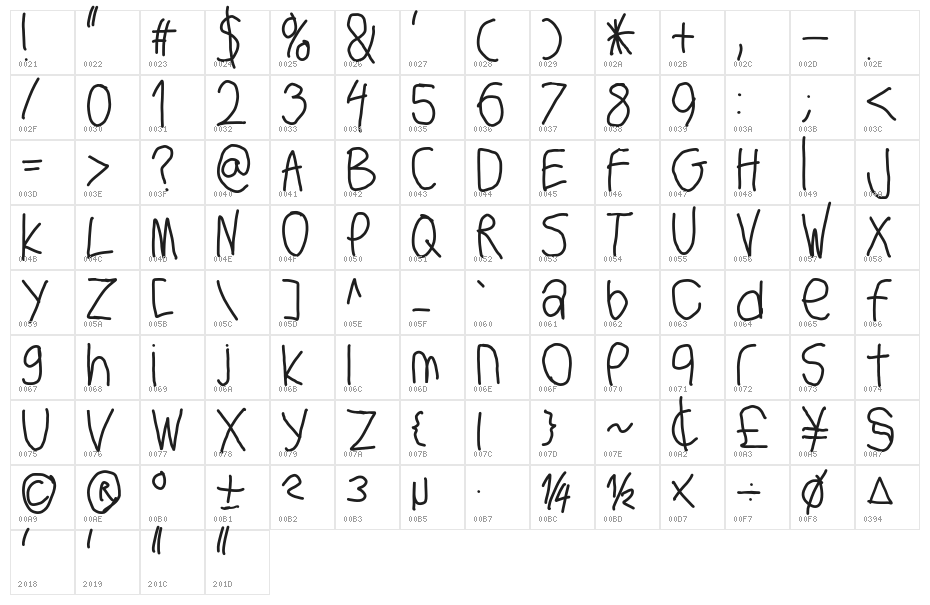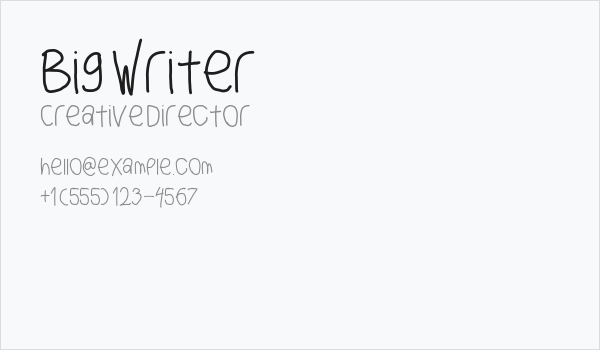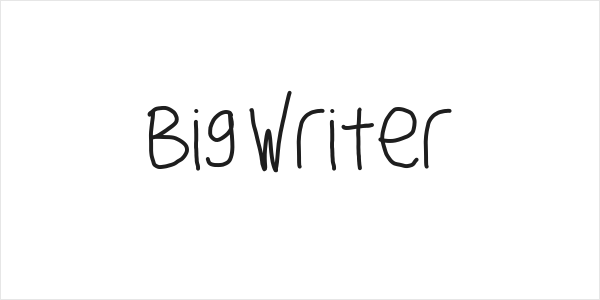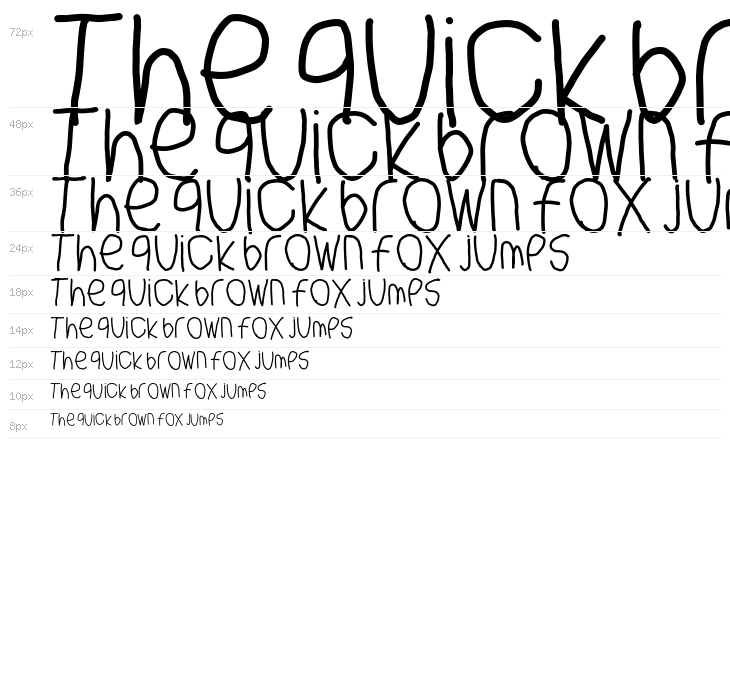
Big Writer Font
Big Writer Description
This font exhibits a playful and informal handwritten style, characterized by its irregular and organic letterforms. The strokes are uneven, giving it a casual and approachable feel. The uppercase and lowercase letters maintain a consistent style, with rounded edges and a slightly tilted appearance, enhancing its whimsical nature. The numerals and special characters follow the same playful design, ensuring uniformity across all elements. This font is well-suited for projects that aim to convey a sense of friendliness and creativity.
| Proposed Projects | Ideal for children's books, creative posters, casual invitations, and personal blogs. |